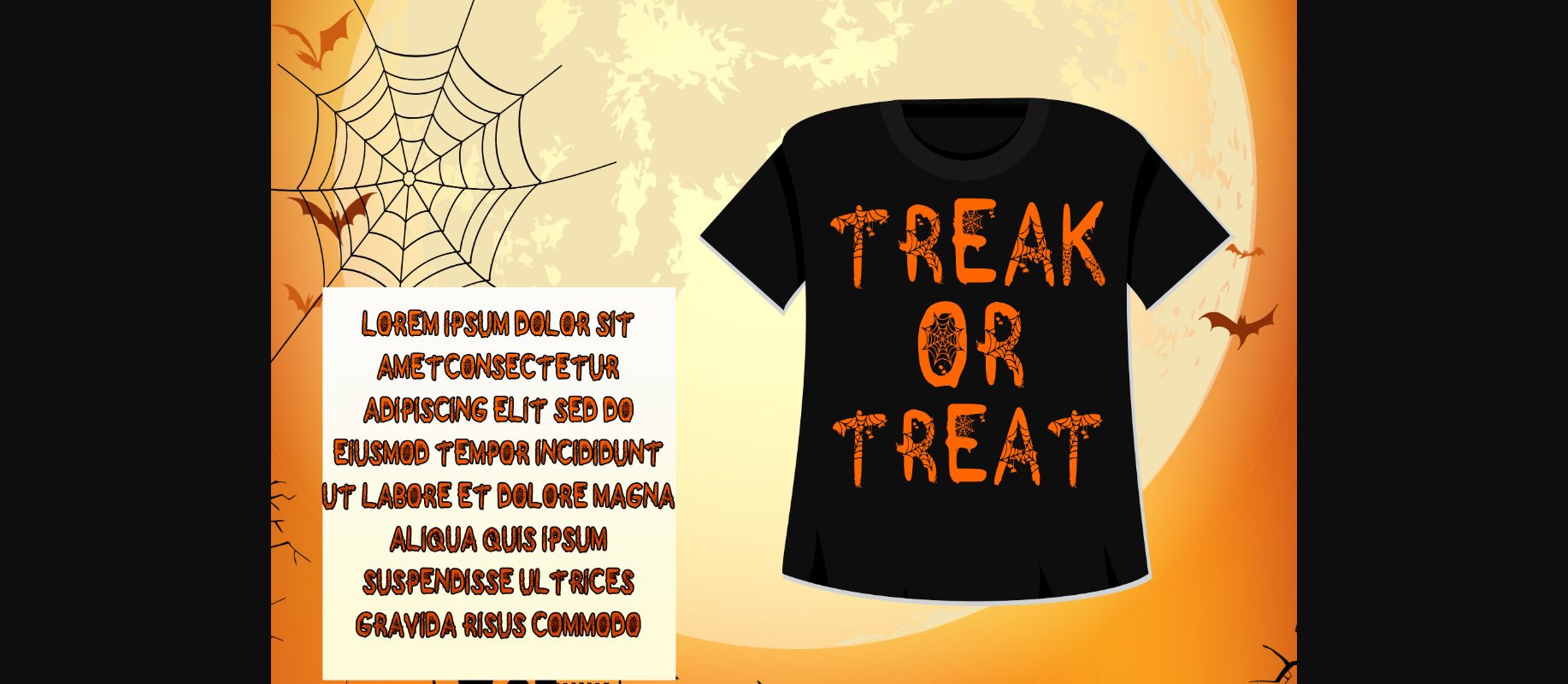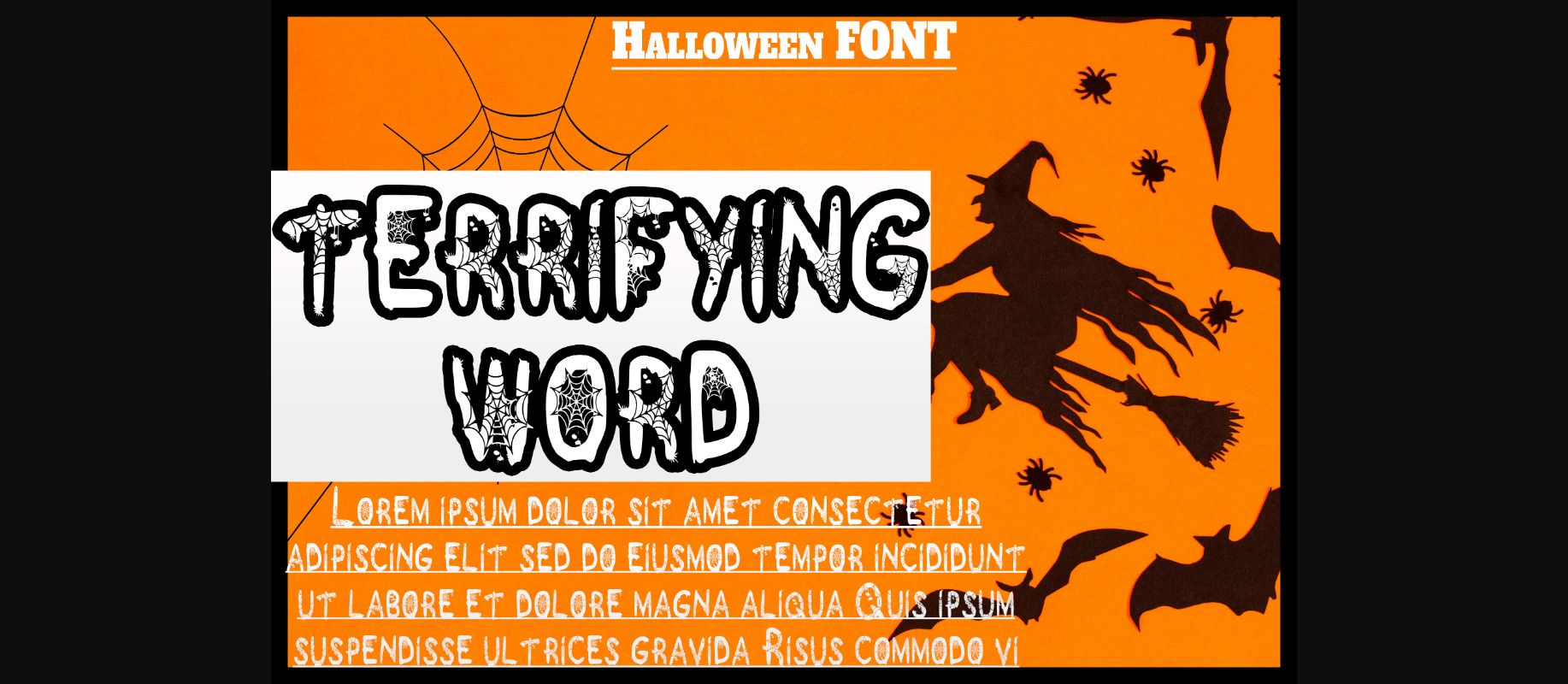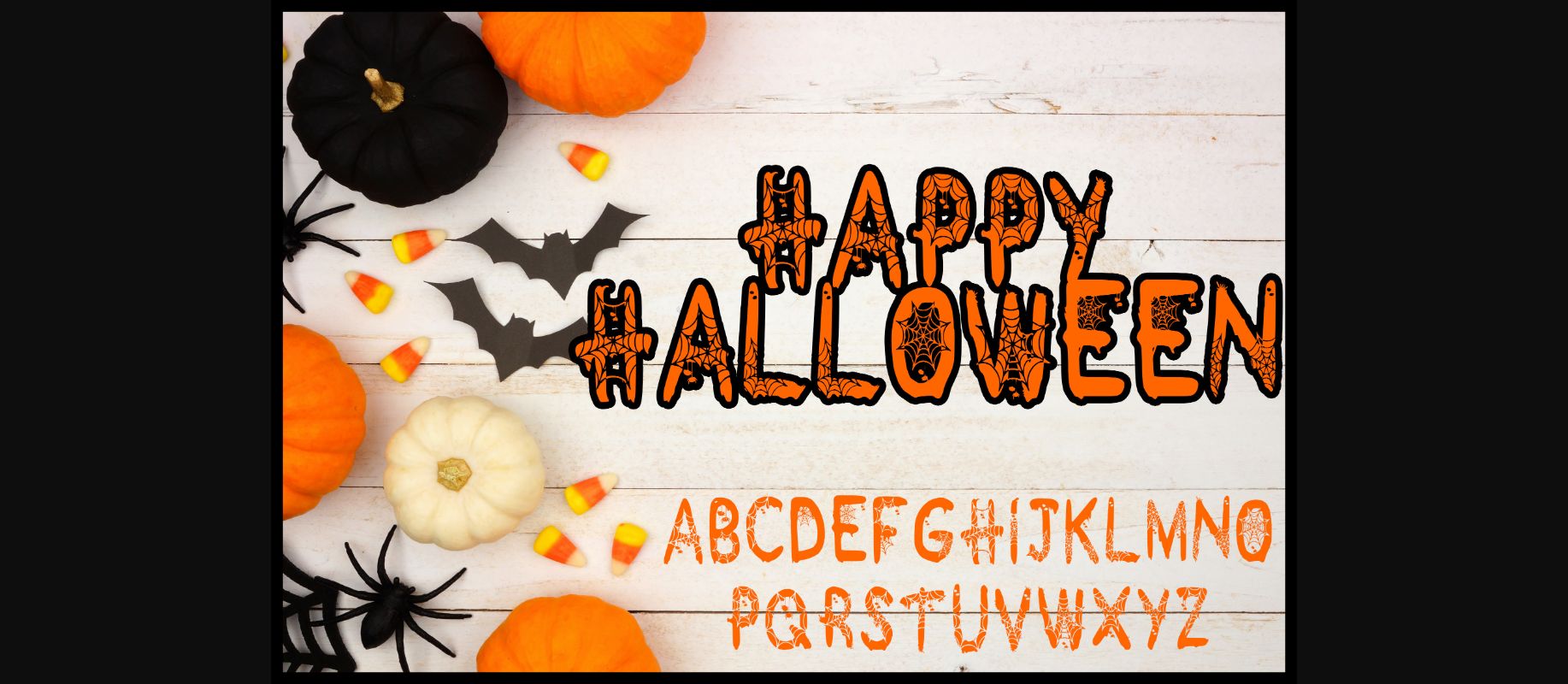
Terrifying Word Font
About Terrifying Word Font
Terrifying Word is a spooky and fun decorative font. It is perfectly suitable for any Halloween-related project or crafty idea! The only limit is your imagination.